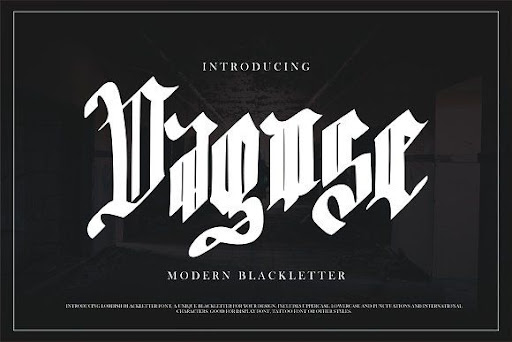
Best Modern Blackletter Fonts
From the team at sergey mironov’s store, the blackletter font is a modern gothic font that does its best work being used in bigger font sizes. Bauhaus fonts best fonts for academic papers/writing emoji fonts
Dagose Modern Blackletter By Vunira On Creativemarket Blackletter Font Calligraphy Words Pretty Fonts
Best modern blackletter fonts. Best vintage font multilingual support. This collection focuses on typeface families from reputable type designers and foundries that contain multiple weights and styles. Mediaeval/gothic | celtic | modern
It adds a bold touch to your projects and will inspire you to create something unique and modern. Inspired by the decorative arts and architecture movement jatmika typeface fonts is perfect for your project and allows you to create designs, headlines, posters, logos, badges, and. Franklin gothic’s alternatives gill sans’ alternatives the best helvetica alternatives today’s best futura alternatives fonts by topic/style.
The fuller characters have a softer, inviting look. Dreifraktur modern blackletter font free download. Your blackletter typeface font images are prepared in this web.
Machine killer font is ideal for headings, flyers, greeting cards, product packaging, book covers, printed quotes, logotype, apparel design, and album covers, and it is perfect for. The best free blackletter fonts the best free sans serif font families the best free slab serif font families font alternatives. Machine killer font is a modern blackletter style font that is perfect for your display or body text designs.
Ozymandias free parallel pen font download. This is the linotype expert choice: Blackletter typeface font are a theme that is being searched for and appreciated by netizens today.
You can save the blackletter typeface font here. Santiago black letter free typeface. Othelie includes alternate glyphs, so you can have the perfect modern blackletter font for your project.
Rubia perfect parallel typeface download. Othelie is a very interesting take on goth fonts. We have got 13 pix about blackletter typeface font images, photos, pictures, backgrounds, and more.
Ad download 100's of fonts, graphic assets, actions, icons & more! Hurscol gothic typeface (otf) hurscol is another one of the modern gothic fonts available on envato elements. Perfect for branding, posters, banners, and any event when you can use a larger font, the blackletter font will add a classic gothic feel to anything that you use it with.
Ad download 100's of fonts, graphic assets, actions, icons & more! For a free font, jailetter provides you with a surprising number of features, making it one of the best blackletter fonts you’ll ever find on the web. Some of the font names shown here might be slightly different than the name used on adobe fonts.